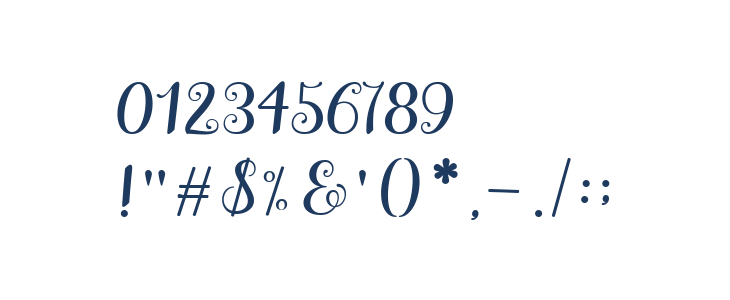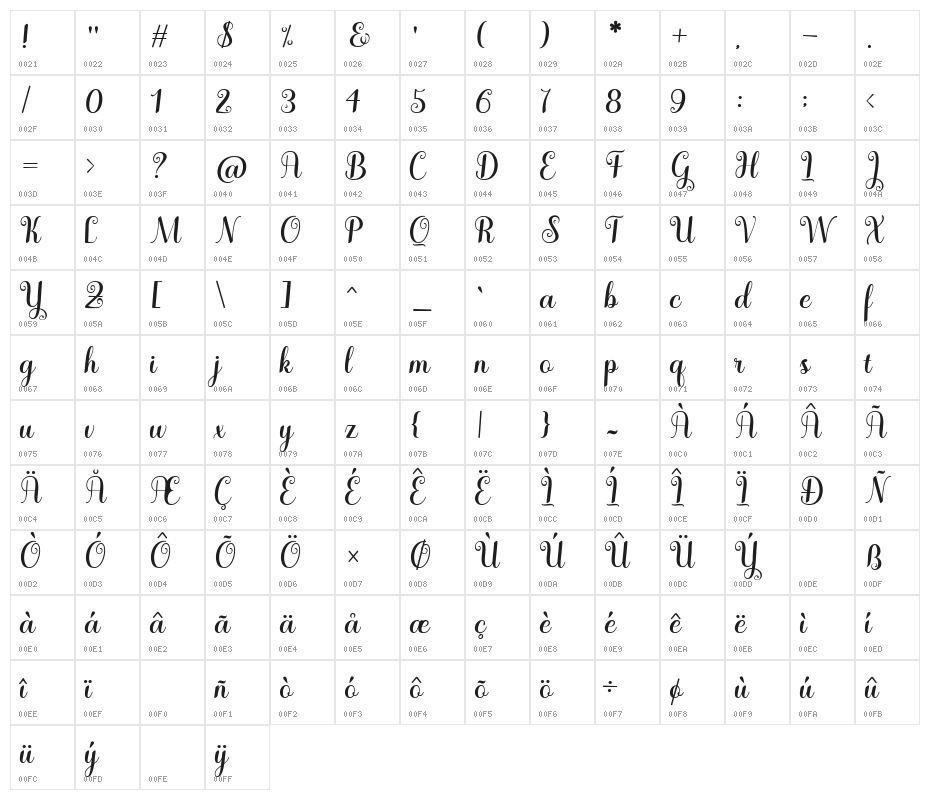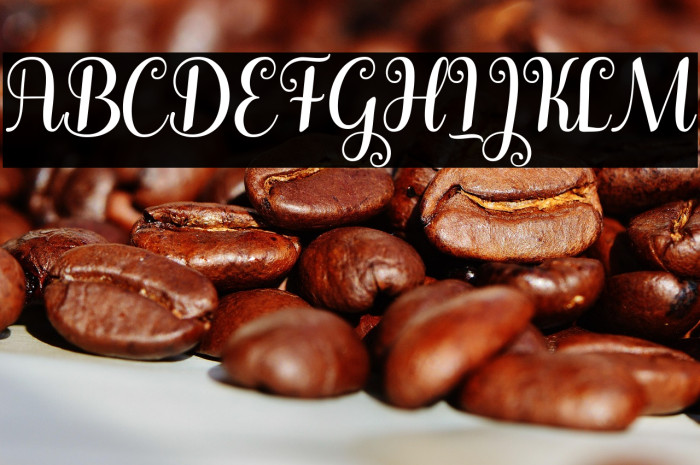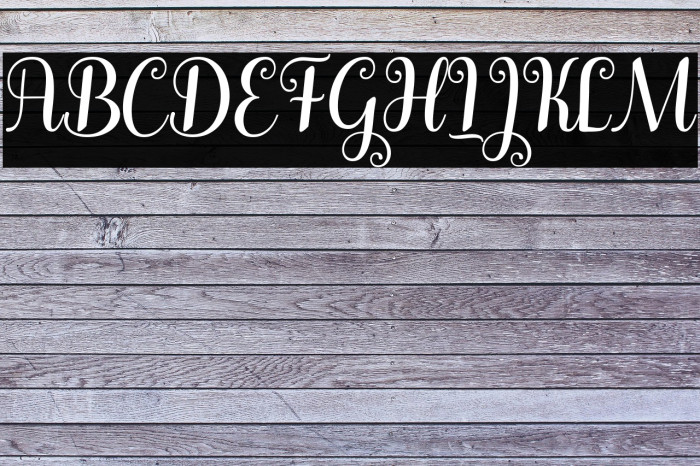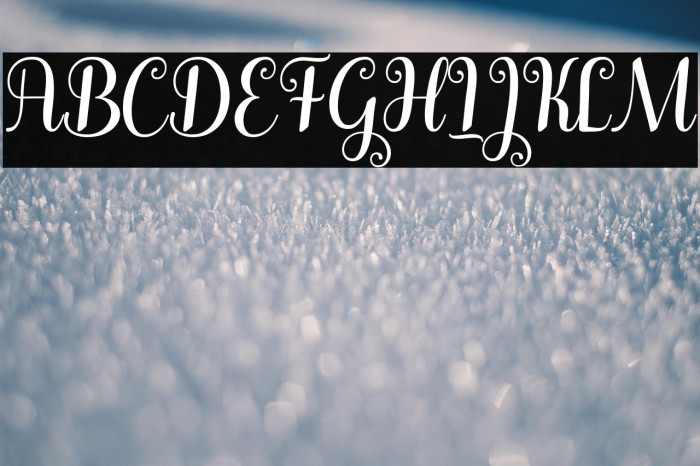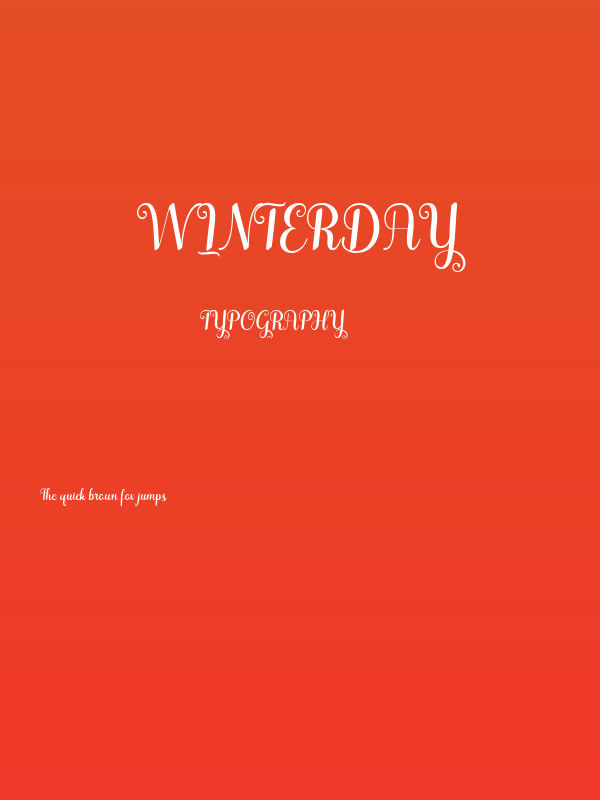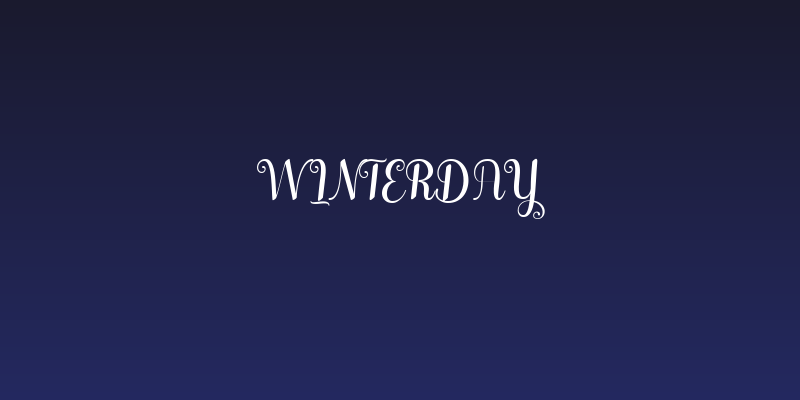
Winterday Font
Winterday Description
This font features an elegant and flowing script style, characterized by its ornate and decorative swirls. The uppercase letters are particularly elaborate, with intricate curls and loops that add a touch of sophistication and flair. The lowercase letters maintain a consistent fluidity, complementing the uppercase with their graceful curves. The numerals are equally stylish, incorporating similar decorative elements that enhance the overall aesthetic. Special characters are designed with the same attention to detail, ensuring a cohesive look across all glyphs. This font exudes a sense of elegance and is perfect for projects that require a touch of class and refinement.
| Use Case | Logos, Invitations, Decorative Text |
| Proposed Projects | Ideal for wedding invitations, luxury branding, greeting cards, and elegant packaging designs. |